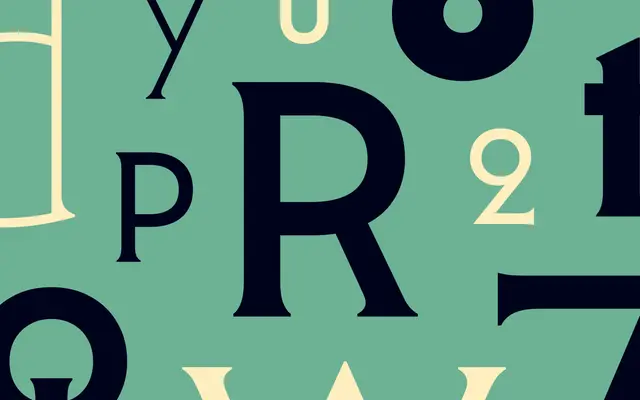
Mendl Serif
Dalton Maag · Angel Kwong
A spur serif by Angel Kwong, partner to Mendl Sans, with Dawn and Dusk variants and delicate decorative serifs.
A spur serif by Angel Kwong, drawn alongside Mendl Sans and sharing its Art Deco DNA. The variable font runs Weight from Hairline to Black with matching italics, with Dawn taking the geometric, period-quirky route and Dusk reading as more organic and approachable. Delicate decorative serifs, looped 2 and a low centre of gravity make it a natural for poetry, packaging and editorial features that want the period without the cliché.
Dalton Maag describe Mendl Serif as a spur serif that exudes Art Deco sophistication with a modern flair, with Weight axis and Dawn and Dusk tonal variants matching Mendl Sans.